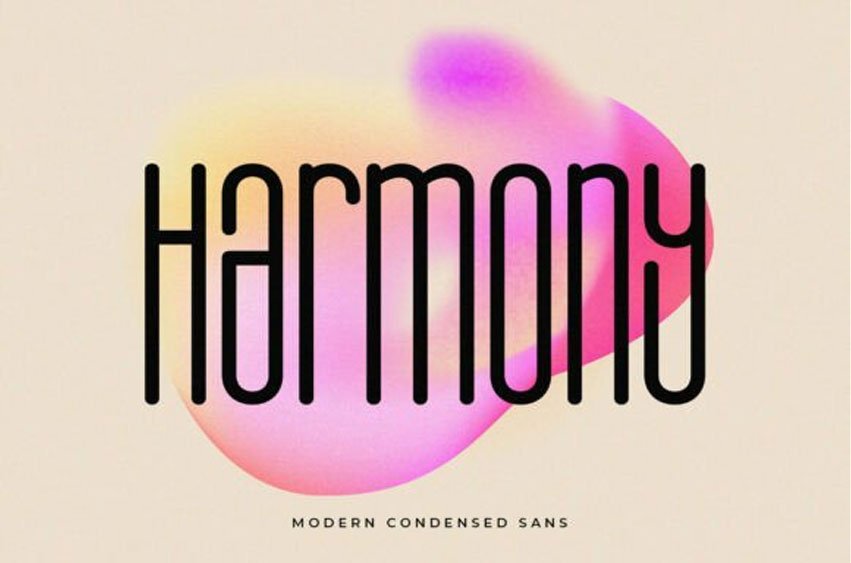
Harmony Condensed Font
Harmony Condensed Font is a lovely and timeless sans serif font. It is the best choice for creating eye catching logos, branding and quotes.
Every letter has a unique and beautiful touch, which will make your design come alive!